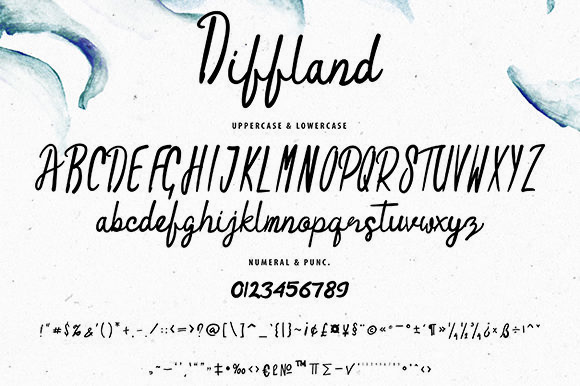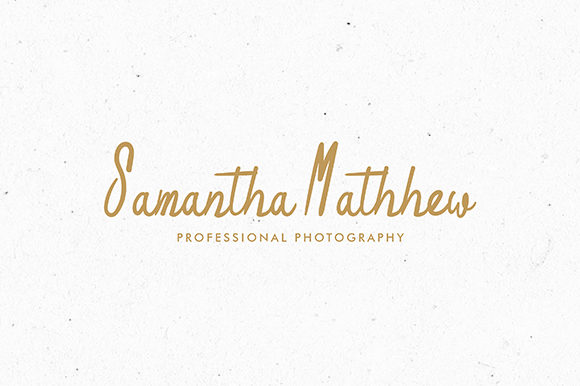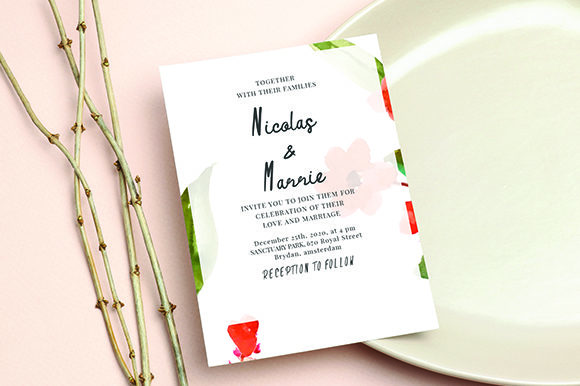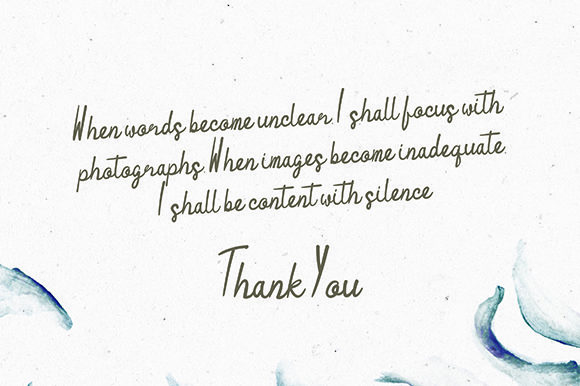
Give Your Designs a Personal Touch with the Diffland Font
As a designer, there’s nothing quite like the thrill of bringing a project to life. Whether it’s a brand-new logo, a wedding invitation, or a social media campaign, the right font can make all the difference. But with so many options out there, it can be hard to know where to start.
Enter the Diffland Font, a beautiful handwritten script that adds a touch of personality to any design. With its quick and speedy pacing, it’s the perfect choice for branding projects, logos, and more. Whether you’re a seasoned pro or just starting out, the Diffland Font is a valuable addition to any designer’s toolkit.
Diffland Font Key Features
- Unique Characteristics: Diffland Font features a distinctive, hand-crafted design with intricate details and subtle nuances, making it perfect for creative and artistic applications.
- Kerning and Ligatures: Includes advanced kerning and ligature pairs for precise text rendering and a professional look.
Diffland Font Review
At first glance, the Diffland Font has some promising aspects that make it worth considering. ✨ One of the things I appreciate is its unique and quirky style, which could be perfect for projects that need a touch of whimsy. The font’s irregularities also add a sense of character and personality, making it stand out from more generic font options.
Another aspect that works well is the font’s versatility. ✨ It comes in a range of weights, from light to bold, allowing designers to choose the perfect fit for their project. This flexibility is especially useful when working on projects with multiple text elements, as it makes it easy to create visual hierarchy and balance.
- ⚠️ Inconsistent letter spacing, which can be distracting in certain contexts.
- ⚠️ Limited language support, which may be a concern for projects that require multilingual text.
- ⚠️ Some characters may appear slightly distorted or irregular, which could be problematic for projects that require precision.
Overall, the Diffland Font is an interesting and unique option that can add a creative touch to projects. While it has its limitations, it’s still worth considering for designers looking for a font that stands out from the crowd.
Tips for Getting the Most Out of Diffland Font
Use Diffland Font for creative projects, such as:
- Infographics
- Posters
- Brochures
Experiment with different font sizes, colors, and settings to achieve unique effects.